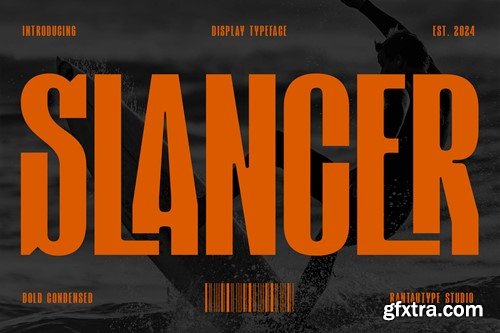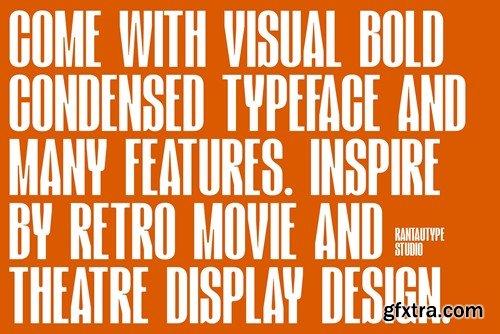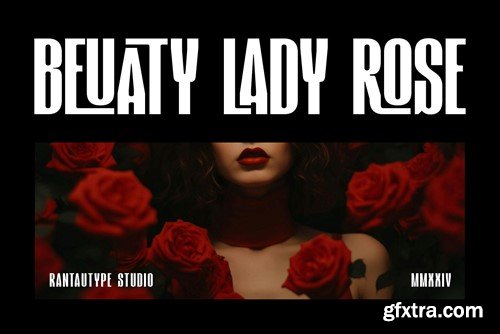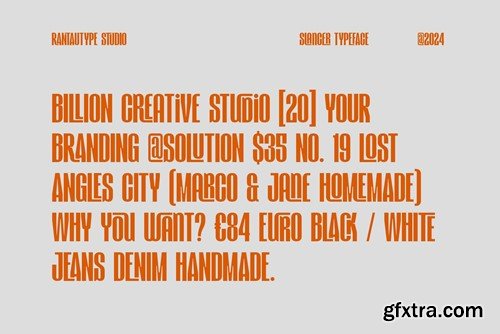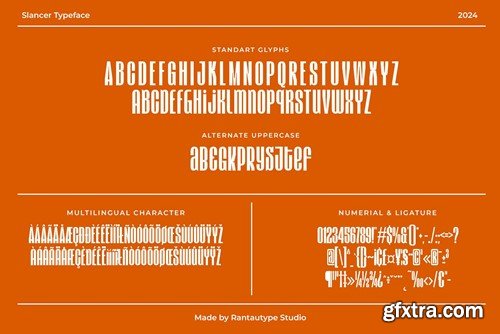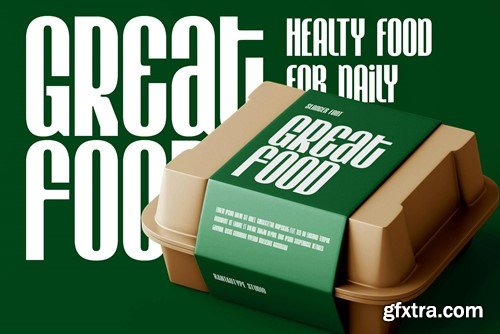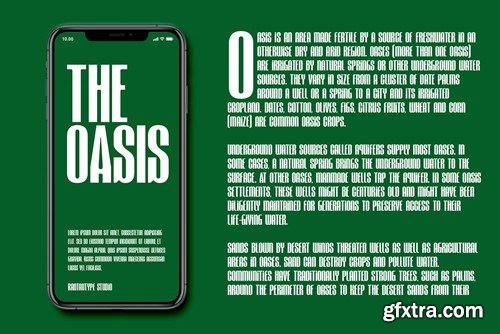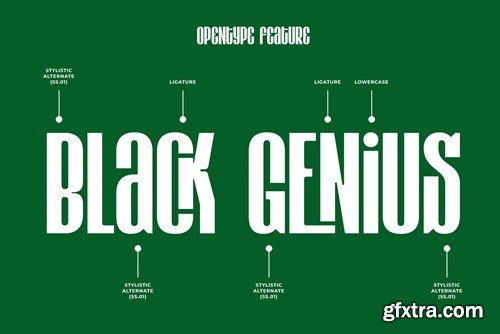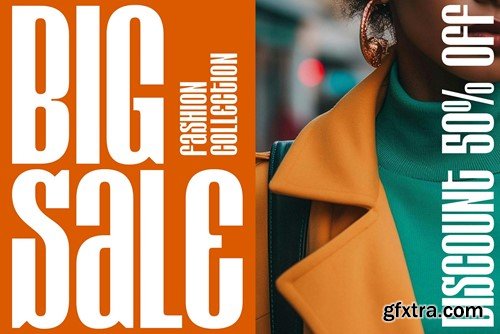
Slancer is Bold condensed visual typeface with fresh soft character form. Inspire by retro movie and teatre display design. Slancer come with 2 style ( reguler and italic), alternate, ligature and support multilingual character. Slancer is a perfectly choice for any creative endeavor, chic, lifestyle design such as logos, advertisements, watermark on photography, stationery, branding project, display and magazine, invitation, corporate brand, product design, label, business project and many other project. What you have: Fonts include Multilingual Character for: Afrikaans, Albanian, Asu, Basque, Bemba, Bena, Breton, Chiga, Cornish, Dutch, English, Estonian, Filipino, Finnish, Friulian, Galician, Gusii, Indonesian, Irish, Italian, Kabuverdianu, Kalenjin, Kinyarwanda, Luo, Luxembourgish, Luyia, Machame, Makhuwa-Meetto, Makonde, Malagasy, Manx, Morisyen, North, Ndebele, Nyankole, Oromo, Portuguese, Quechua, Romansh, Rombo, Rundi, Rwa, Samburu, Sango, Sangu, Scottish, Gaelic, Sena, Shambala, Shona, Soga, Somali, Spanish, Swahili, Swedish, Swiss, German. Thank you for your purchase! Hope you enjoy with our font!